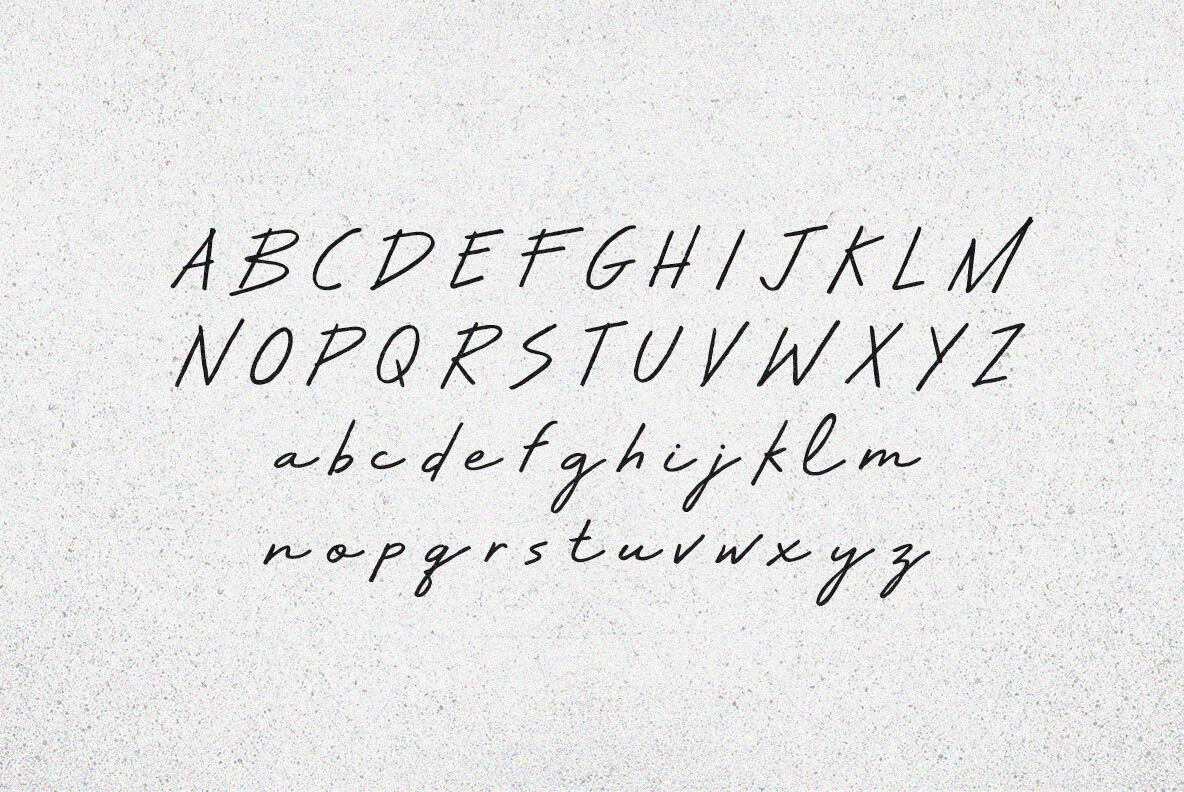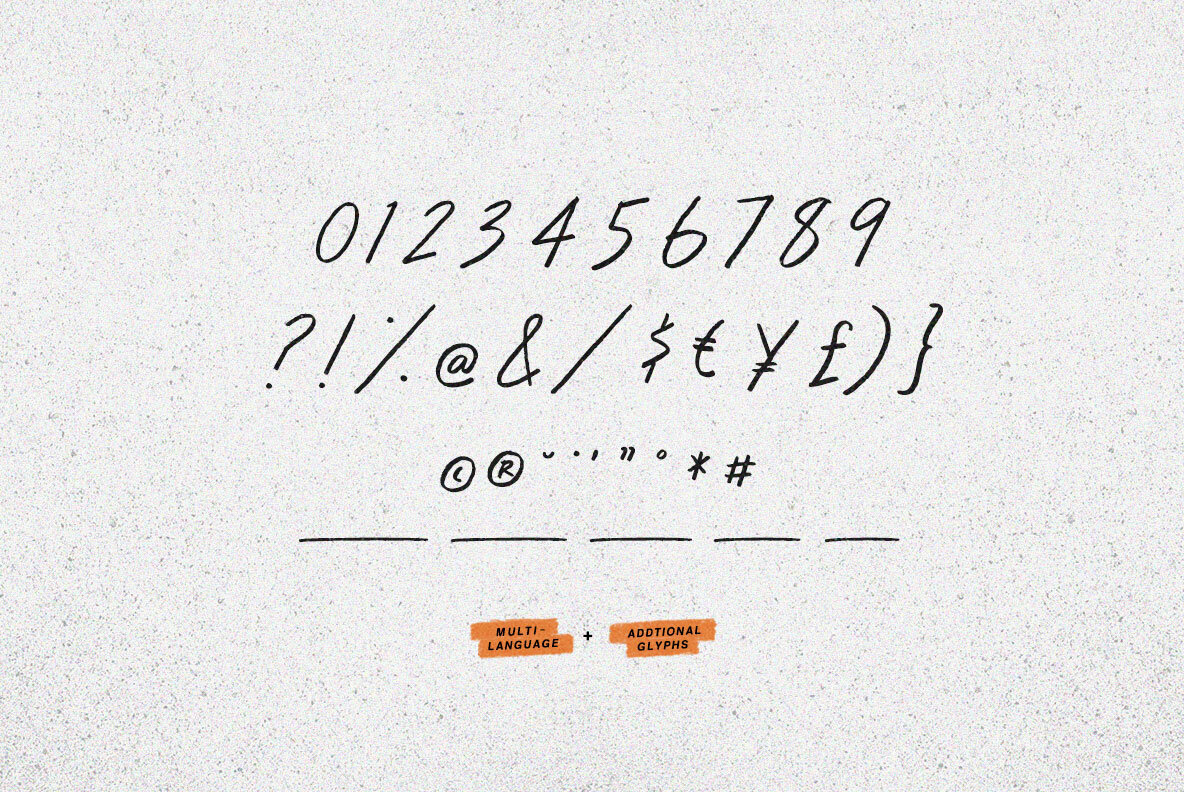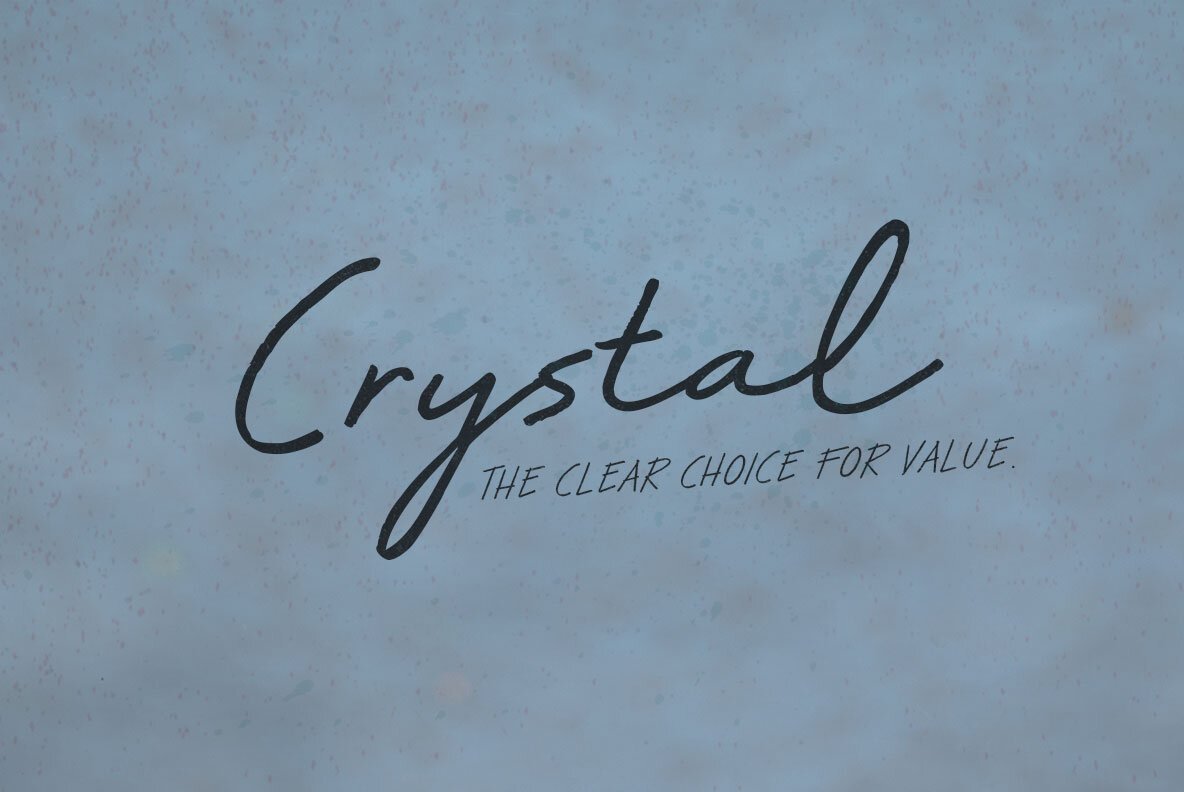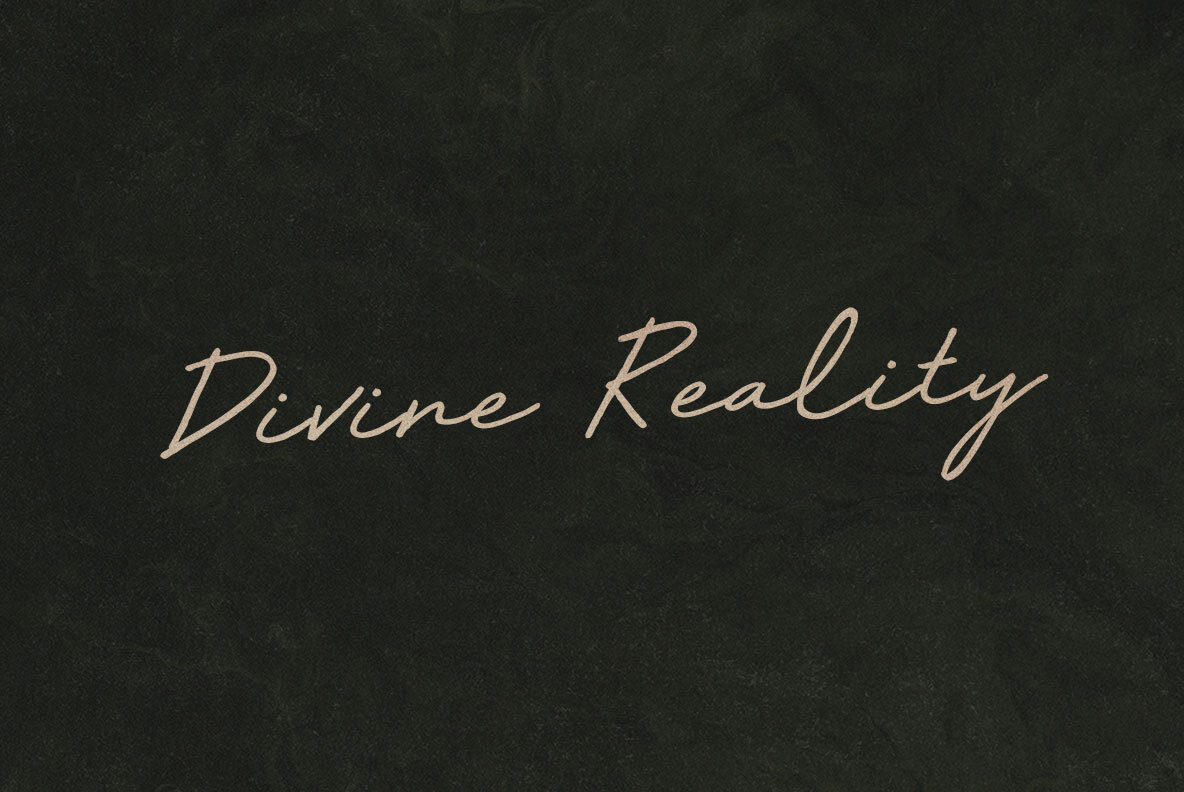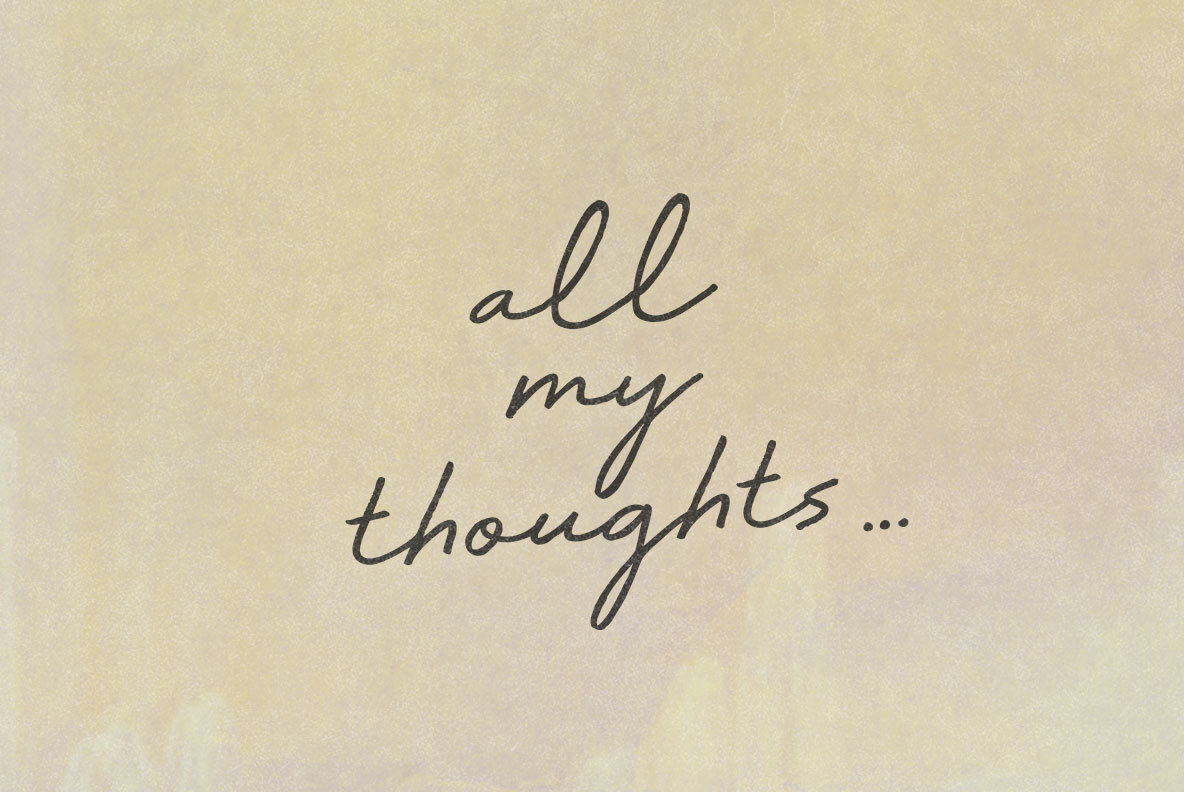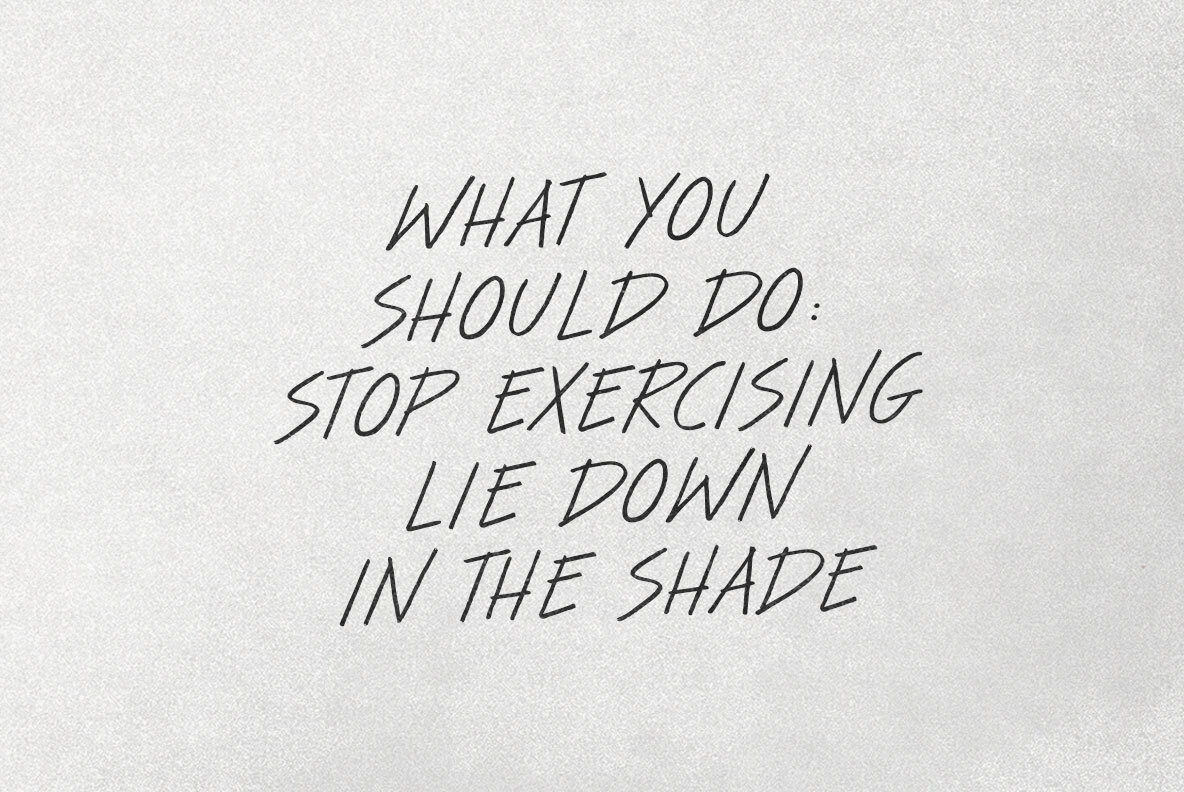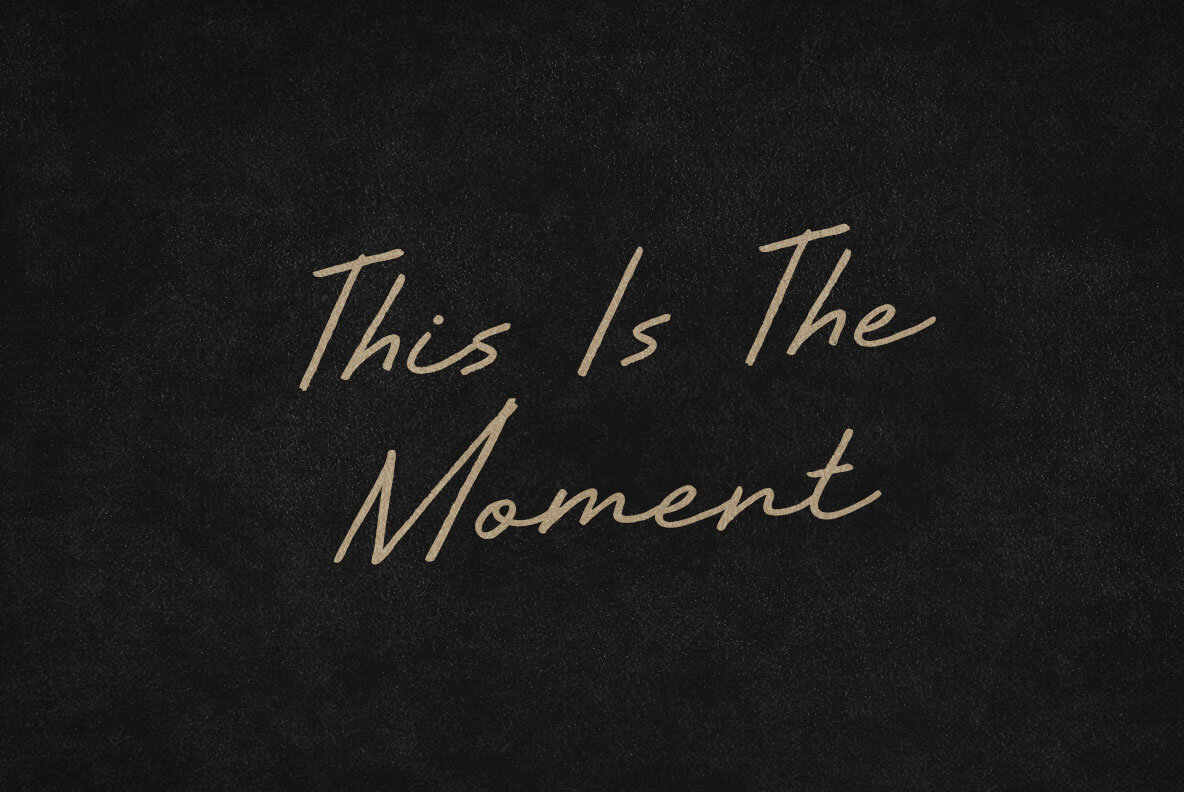
Make Believe Font
Make Believe
It’s fun. The fantasy has fingers preload cliff-edge grip. Get up. Get on with it. Feel the heat off lathered unicorn flank, smell the death on meaty manticore breath. Safe to take as directed, Make Believe directives.